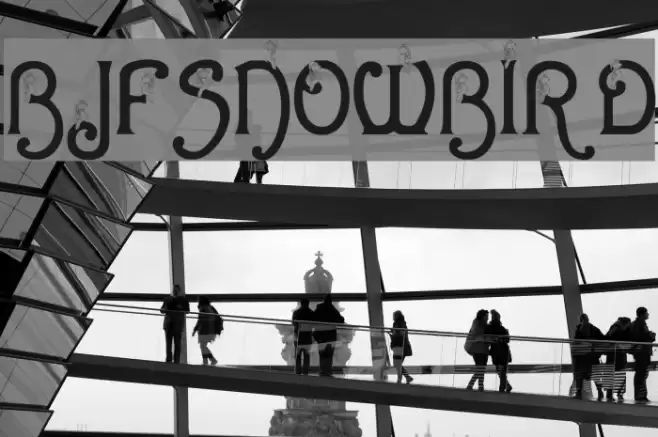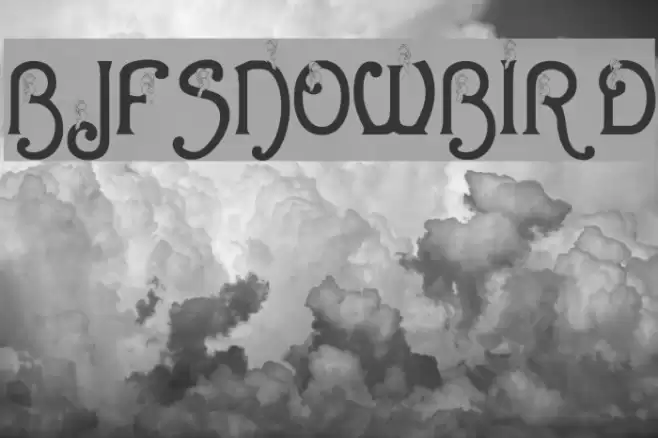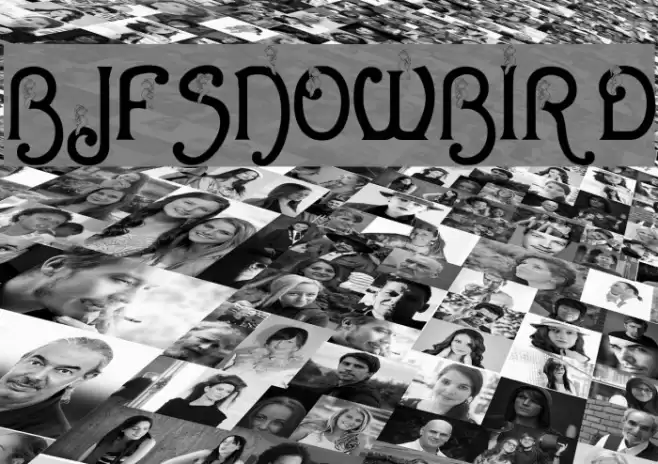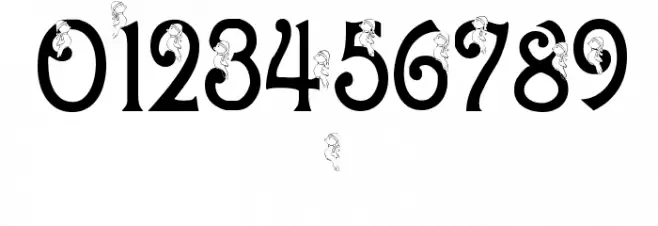
BJF Snowbird Font
BJF Snowbird Description
This font features a unique and whimsical design, incorporating playful elements into each character. The letters are bold and have a decorative flair, with intricate details that resemble snowflakes or delicate patterns. The overall appearance is both elegant and fun, making it suitable for festive or creative projects. The characters are well-balanced, with consistent stroke widths and a harmonious flow. The numbers and special characters maintain the same decorative style, ensuring a cohesive look across all elements.
A whimsical and decorative font with playful, snowflake-like details from Uncategorized fonts.
- Proposed Projects: Ideal for holiday cards, festive invitations, creative branding, and decorative posters.